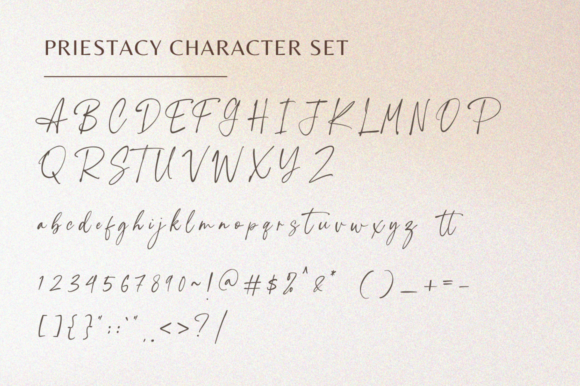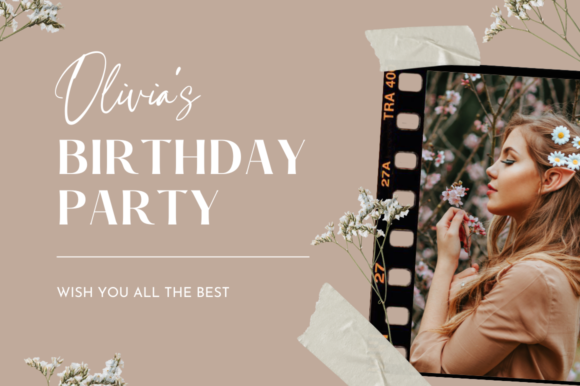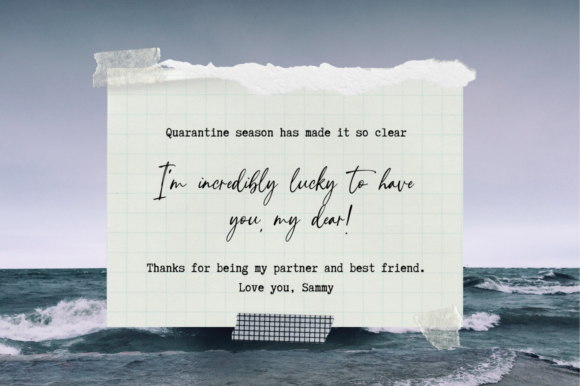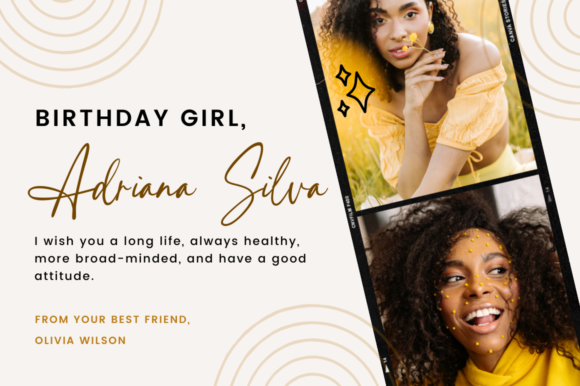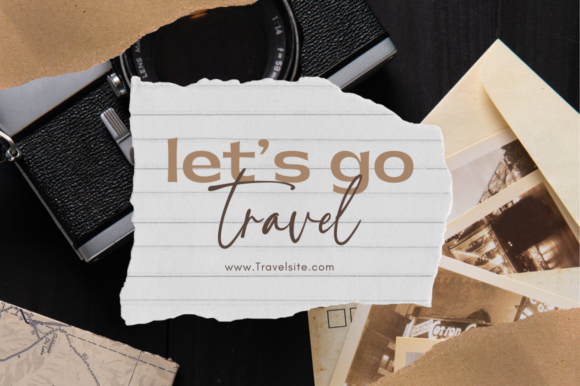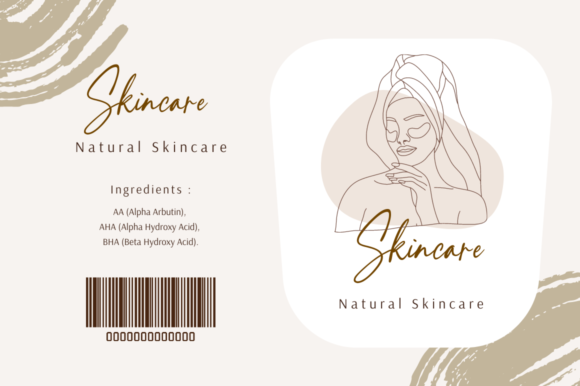
About Priestacy Font
Priestacy is a delicate and stylish script font. It is perfect for branding, invitation, stationery, wedding designs, social media posts, advertisements, product packaging, product designs, label, photography, watermark, special events, and more. This font is PUA encoded which means you can access all of the glyphs and swashes with ease!